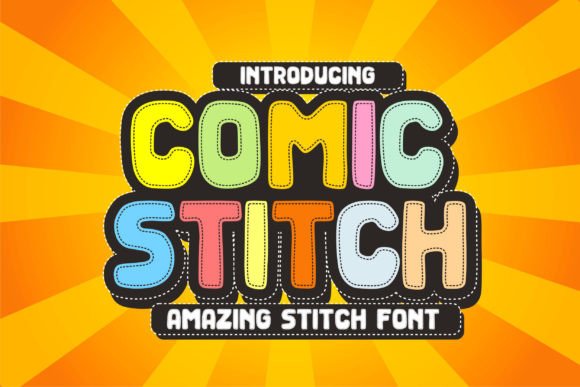
Introducing Comic Stitch Font: The Ultimate Decorative Font for Fun and Creative Designs
The world of typography is vast and diverse, offering a multitude of font styles to suit various design needs. Among these, decorative fonts hold a special place for adding a touch of personality and flair to designs. One such font that has gained popularity for its unique and engaging aesthetic is the Comic Stitch Font. This article delves into the features, applications, and benefits of using Comic Stitch Font in your design projects.
What is Comic Stitch Font?
Comic Stitch Font is a decorative font that embodies a sewing texture theme, making it stand out with its fun and relaxed concept. This font is meticulously designed to mimic the look of stitched text, reminiscent of embroidered letters or the pages of a comic book. Its distinctive appearance is not only visually appealing but also evokes a sense of nostalgia and playfulness, making it an excellent choice for projects aimed at a younger audience or for anyone looking to add a whimsical touch to their designs.
Key Features of Comic Stitch Font
- Unique Stitching Texture: The font boasts a detailed stitching effect that gives text a three-dimensional appearance, making it highly engaging.
- Fun and Relaxed Aesthetic: The overall look and feel of Comic Stitch Font are playful and casual, perfect for designs that aim to entertain or appeal to a younger demographic.
- Versatility: Despite its specific theme, Comic Stitch Font can be used across a range of design projects, from digital content to print materials.
- Easy to Read: While it has a decorative style, the font is designed to be legible, ensuring that your message is communicated effectively.
Applications of Comic Stitch Font
Given its characteristics, Comic Stitch Font finds its application in various design fields. Here are some of the most suitable uses:
- Comics and Cartoons: The font’s theme and aesthetic make it a natural fit for comic books, cartoon scripts, and related merchandise.
- Children’s Books and Education: The playful and engaging nature of Comic Stitch Font makes it perfect for materials designed for children, including books, educational resources, and activity sheets.
- Crafts and DIY Projects: For crafters and DIY enthusiasts, this font can add a personalized touch to project titles, instructions, or promotional materials.
- Digital Content: Bloggers, content creators, and social media influencers can use Comic Stitch Font to add a fun element to their digital content, including headings, titles, and graphics.
Benefits of Using Comic Stitch Font
Incorporating Comic Stitch Font into your designs comes with several advantages:
- Enhanced Visual Appeal: The unique stitching effect can make your designs more eye-catching and engaging.
- Emotional Connection: The playful and fun nature of the font can help create an emotional connection with your audience, particularly with children and young adults.
- Brand Differentiation: Using a distinctive font like Comic Stitch can help differentiate your brand or project from others, making it more memorable.
- Versatility in Design: This font can be used in a variety of contexts, offering flexibility in your design projects.
How to Use Comic Stitch Font Effectively
To maximize the impact of Comic Stitch Font, consider the following tips:
- Use it Sparingly: While the font is attractive, using it for large blocks of text can be overwhelming. It’s best used for headings, titles, or key messages.
- Combine with Other Fonts: Pair Comic Stitch Font with simpler fonts for body text to create visual contrast and enhance readability.
- Adjust Size and Color: Experiment with different sizes and colors to ensure the font complements your overall design and doesn’t overpower it.
- Consider the Theme: Ensure that the use of Comic Stitch Font aligns with the theme and tone of your project to maintain consistency.
Comic Stitch Font is a unique and versatile decorative font that can add a fun and playful element to a wide range of design projects. Its distinctive sewing texture theme, combined with its readability and aesthetic appeal, makes it an excellent choice for designers looking to create engaging and memorable content. By understanding its features, applications, and how to use it effectively, designers can leverage Comic Stitch Font to enhance their designs and connect with their audience on a more personal level.